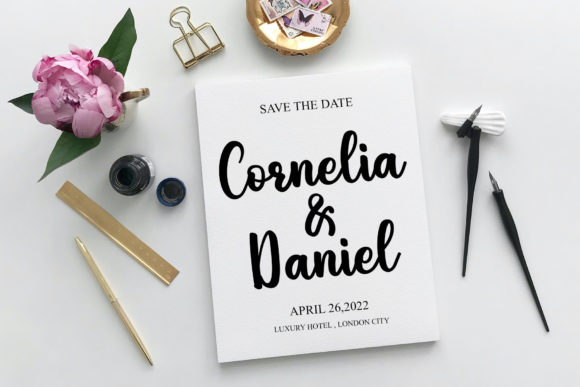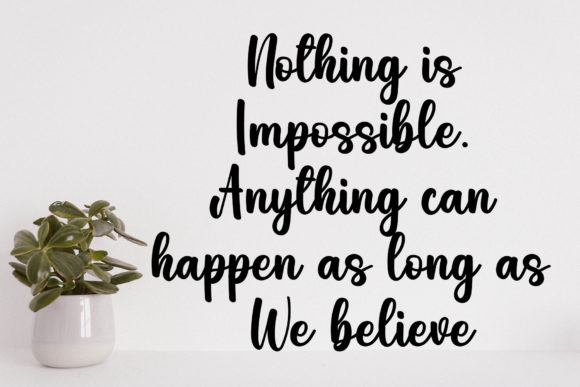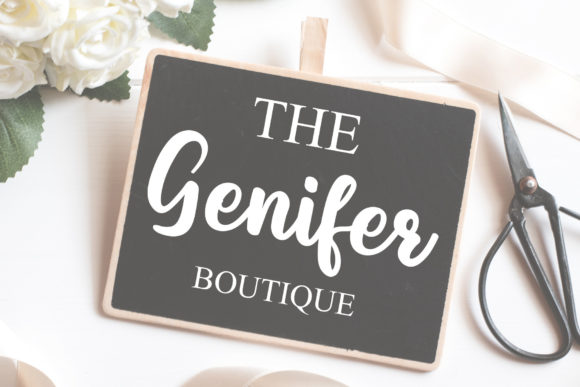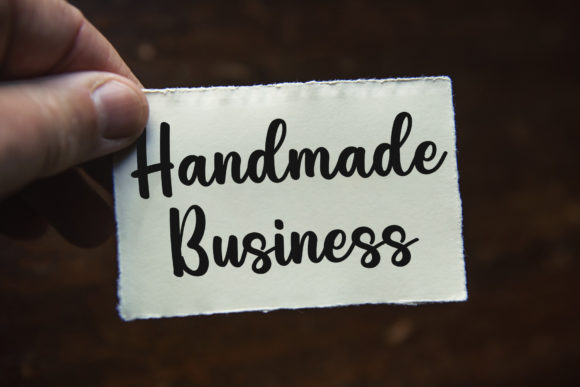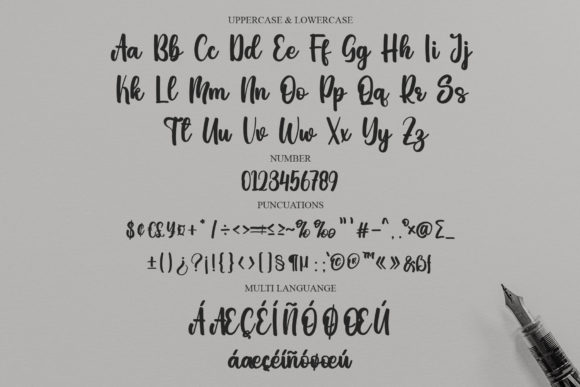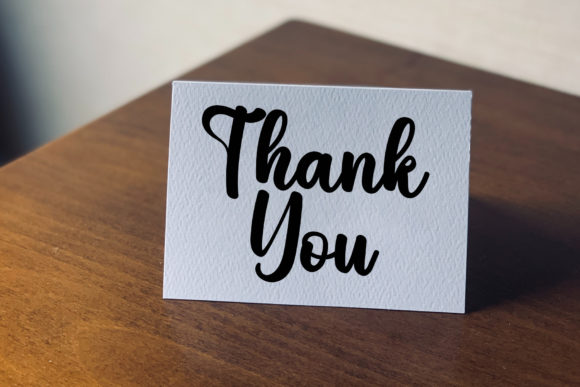
About Homebody Font
Introducing Homebody, a spellbinding and whimsical script font that gracefully weaves through your creative endeavors with its unique charm and smooth curves. This font has been meticulously crafted to cater to the realms of fashion branding and editorial designs, elevating your projects to new heights of sophistication and allure.
Homebody’s distinct personality is unveiled through its artistic strokes and fluid lines, creating an aesthetic that seamlessly integrates playfulness and elegance. The smooth curves that define this font contribute to its overall appeal, making it a versatile choice for a range of design applications.
For those immersed in the world of fashion branding, Homebody emerges as a powerful tool to infuse character and style into your visual identity. Its whimsical nature adds a touch of individuality, making it perfect for logos, clothing labels, and other elements that demand a unique and memorable presence.
In the realm of editorial design, Homebody stands out as a beacon of creativity. Whether you’re working on magazine layouts, book covers, or any editorial content, this font becomes a key player in enhancing the overall visual storytelling. Its ability to evoke a sense of enchantment and sophistication makes it a favorite among designers seeking to create compelling narratives through typography.
What sets Homebody apart is not only its aesthetic appeal but also its innate versatility. Confidently integrate this font into your projects, and you’ll find it harmonizing effortlessly with various design elements. It doesn’t just add a layer of visual interest; it becomes an integral part of the narrative, shaping the overall experience for your audience.
Embrace Homebody with confidence, and you’ll discover a font that transcends the ordinary, leaving an indelible mark on your creative endeavors. Watch as it breathes life into your designs, making them captivating and memorable. Whether you’re a seasoned designer or a newcomer to the creative scene, Homebody invites you to explore the limitless possibilities it offers, promising a delightful journey of self-expression and artistic discovery.